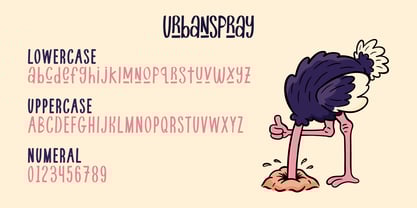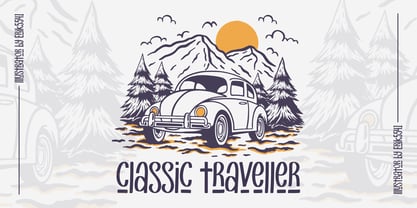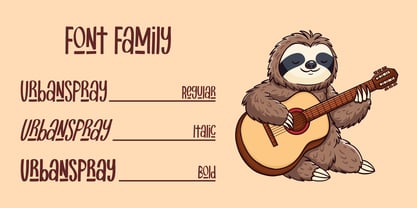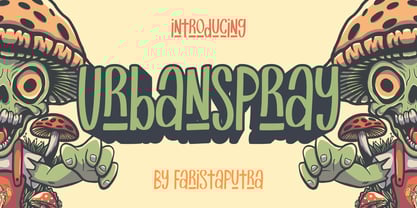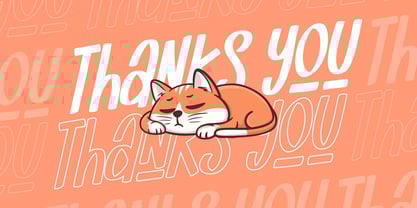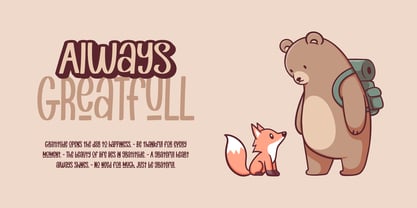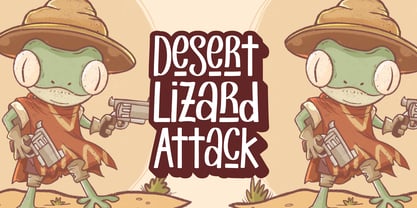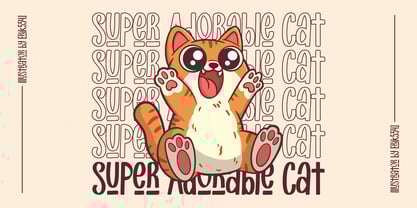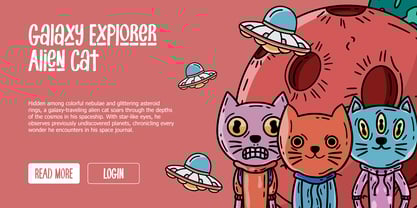
FA Urban Spray
by Faristaputra
The FA Urban Spray Font Family was designed by Frederik Aristaputra and published by Faristaputra. FA Urban Spray contains 3 styles and family package options. More about this family
UrbanSpray is a sans-serif display font that presents a contemporary urban style with a bold and dynamic character. Its design combines minimalist elements and urban aesthetics, making it an ideal choice for branding, posters, packaging, and modern graphic designs. With clean and striking letterforms, this font is designed to attract attention while reinforcing a modern and bold visual identity.
Designers: Frederik Aristaputra
Foundry: Faristaputra